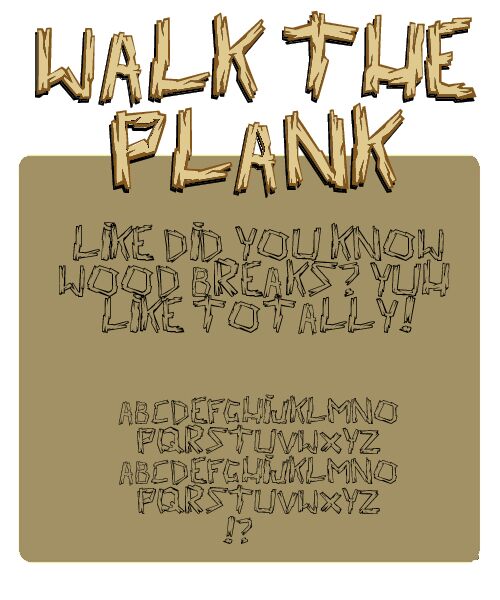
Walk the Plank by Teabeer Studios is a free trash display font built from lanky, jagged capitals. Each letter looks roughly cut and loosely assembled, with doubled contour lines, sharp notches, and awkward joints recurring across the lettering. Uneven widths and tilted strokes give the lettering the scrappy humor of a hand-drawn cartoon title.
Pirate stories and unruly comedy are its clearest territory. It can turn children's publishing, game graphics, event posters, and merchandise into part of the scene, with the letters doubling as a battered wooden sign or comic prop.